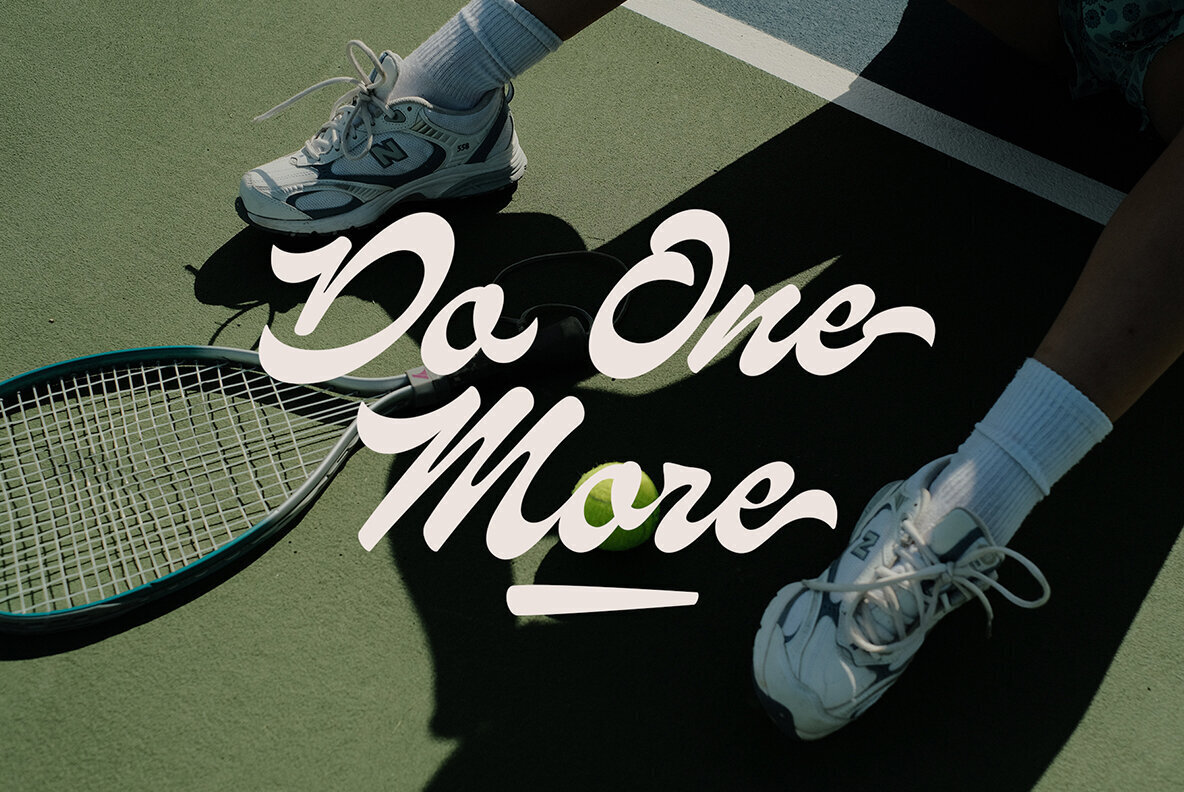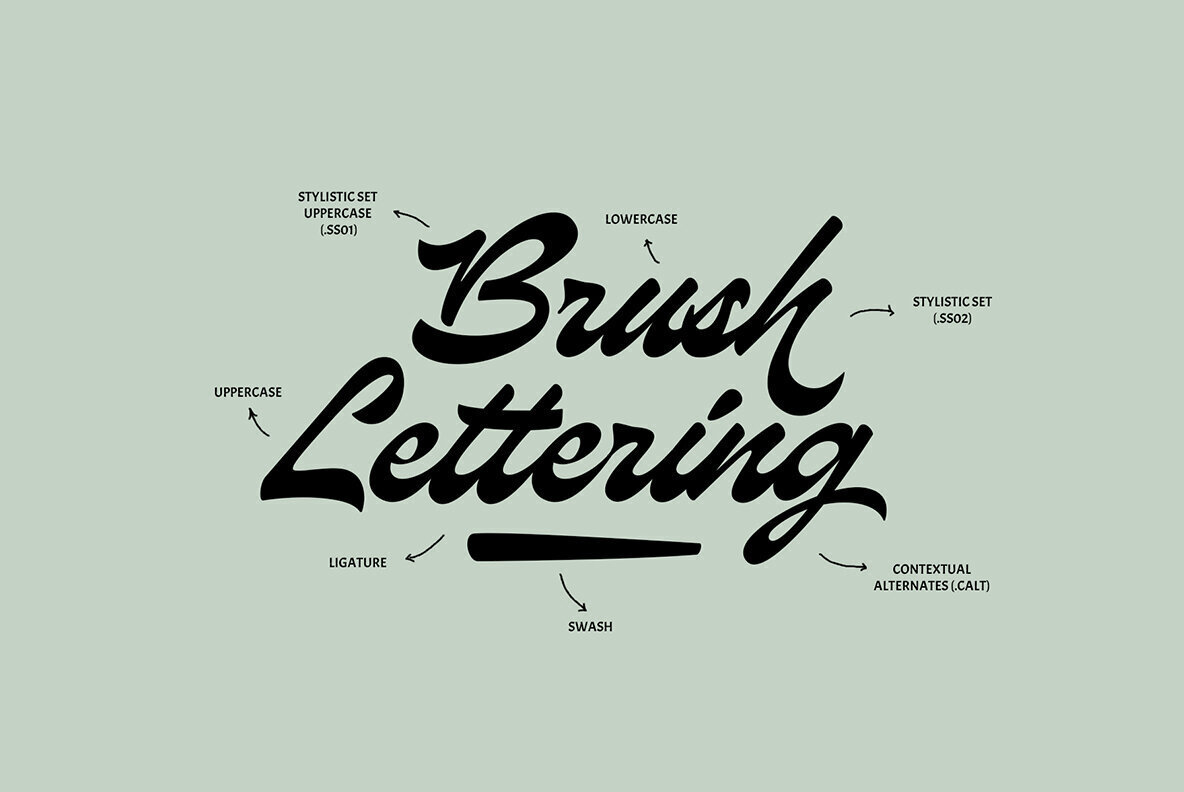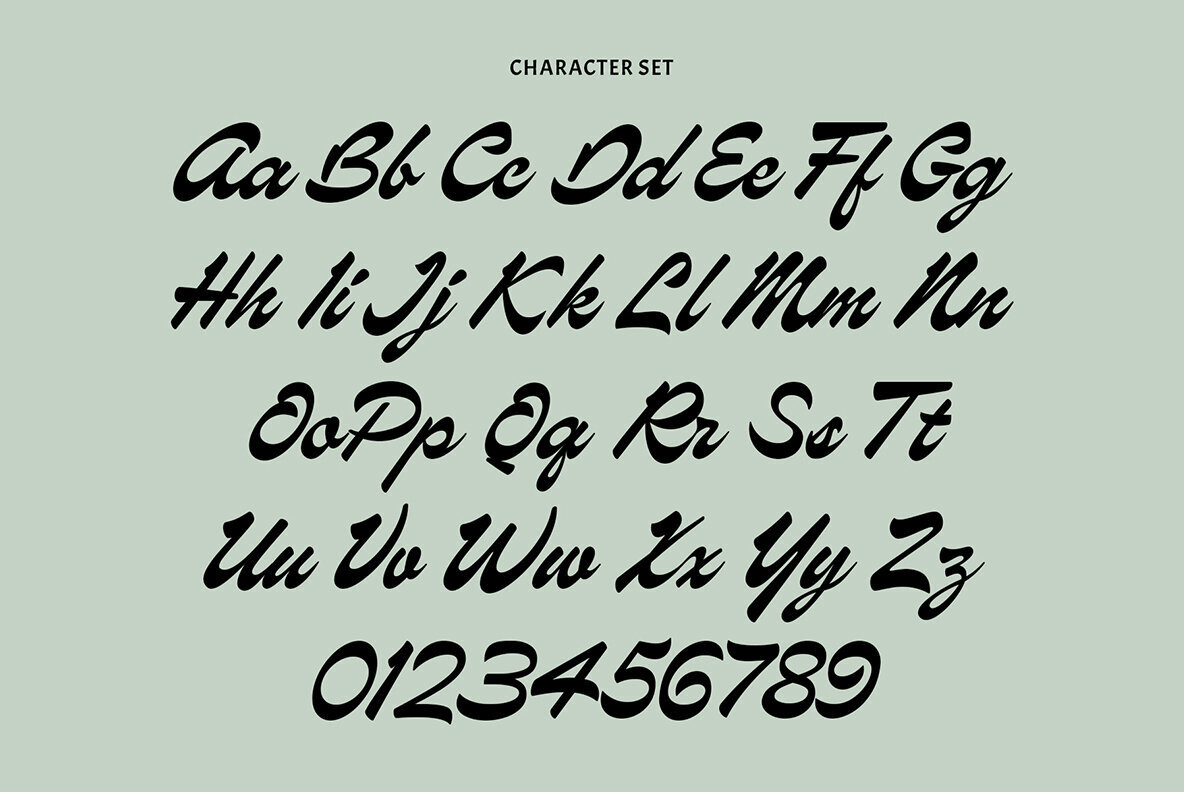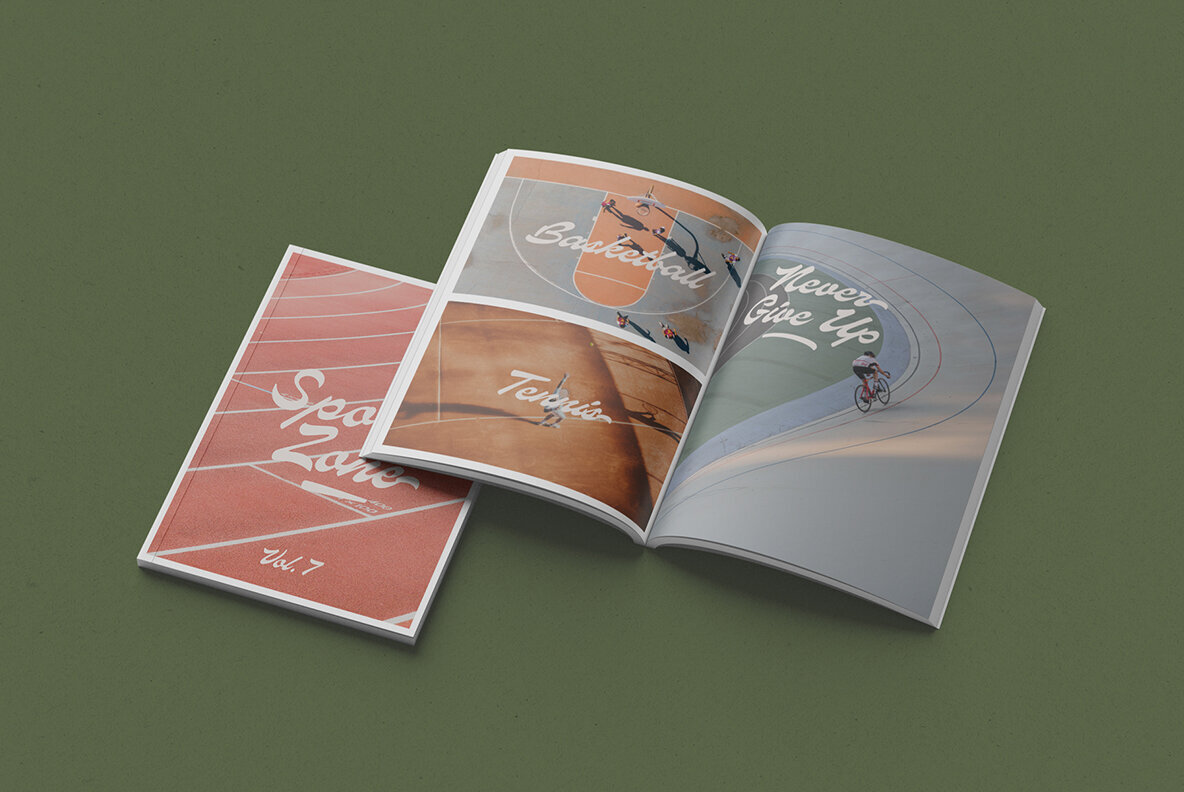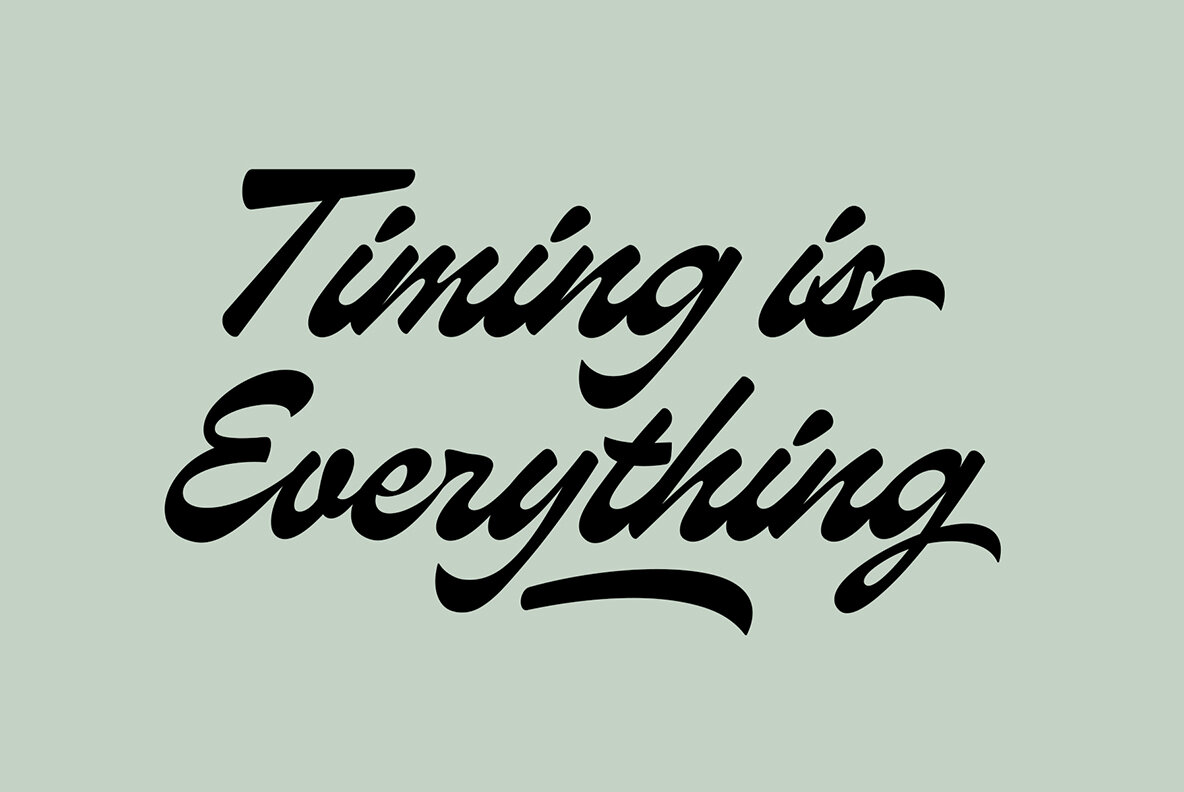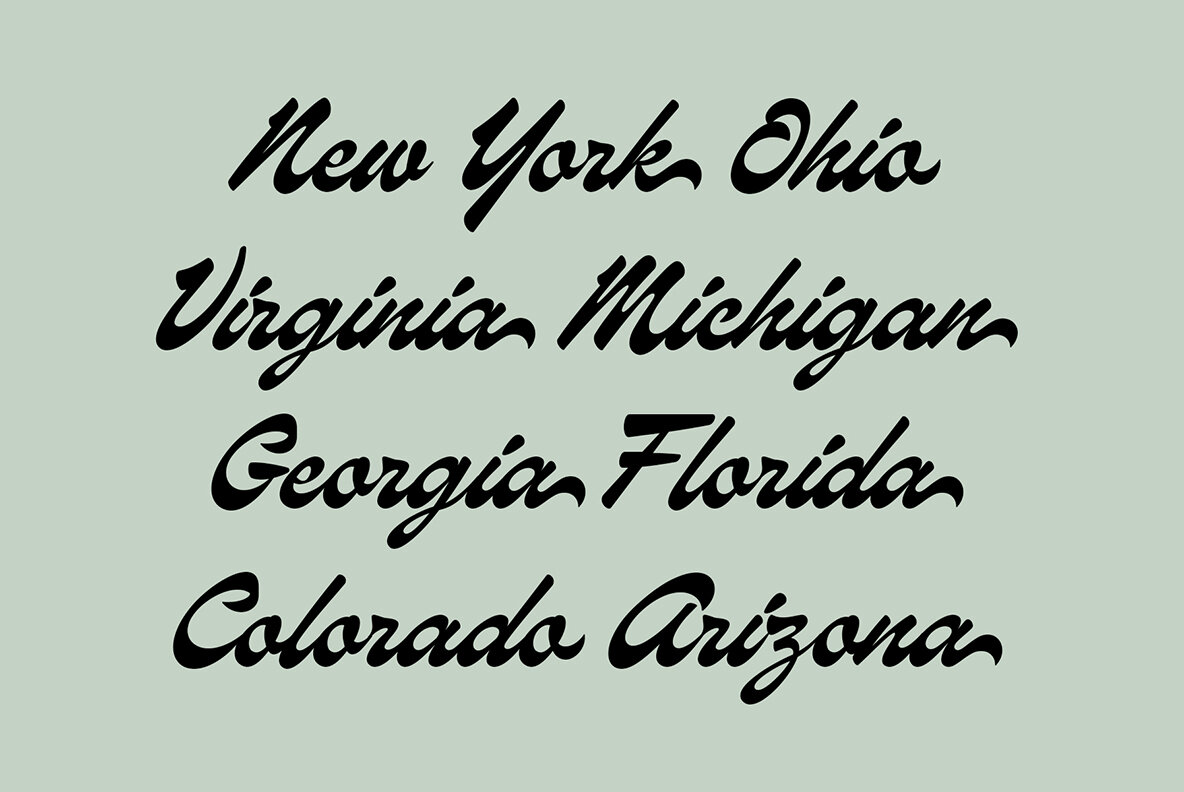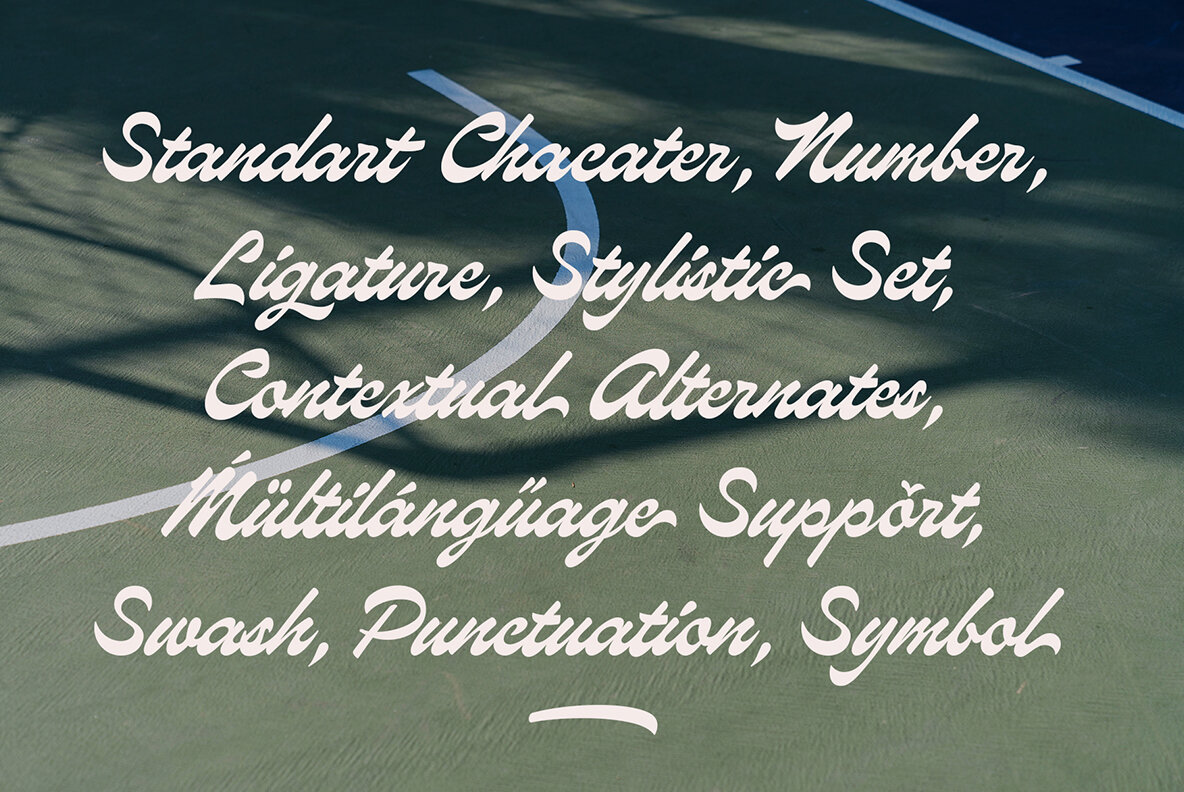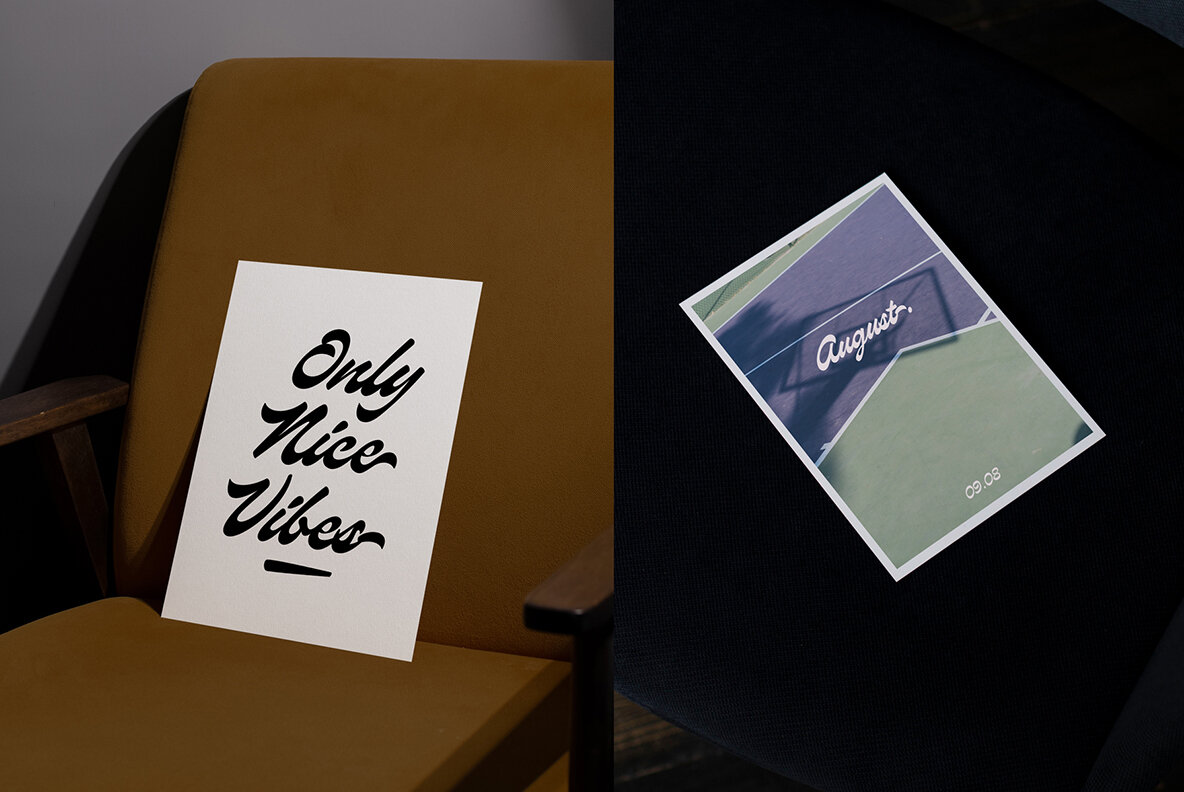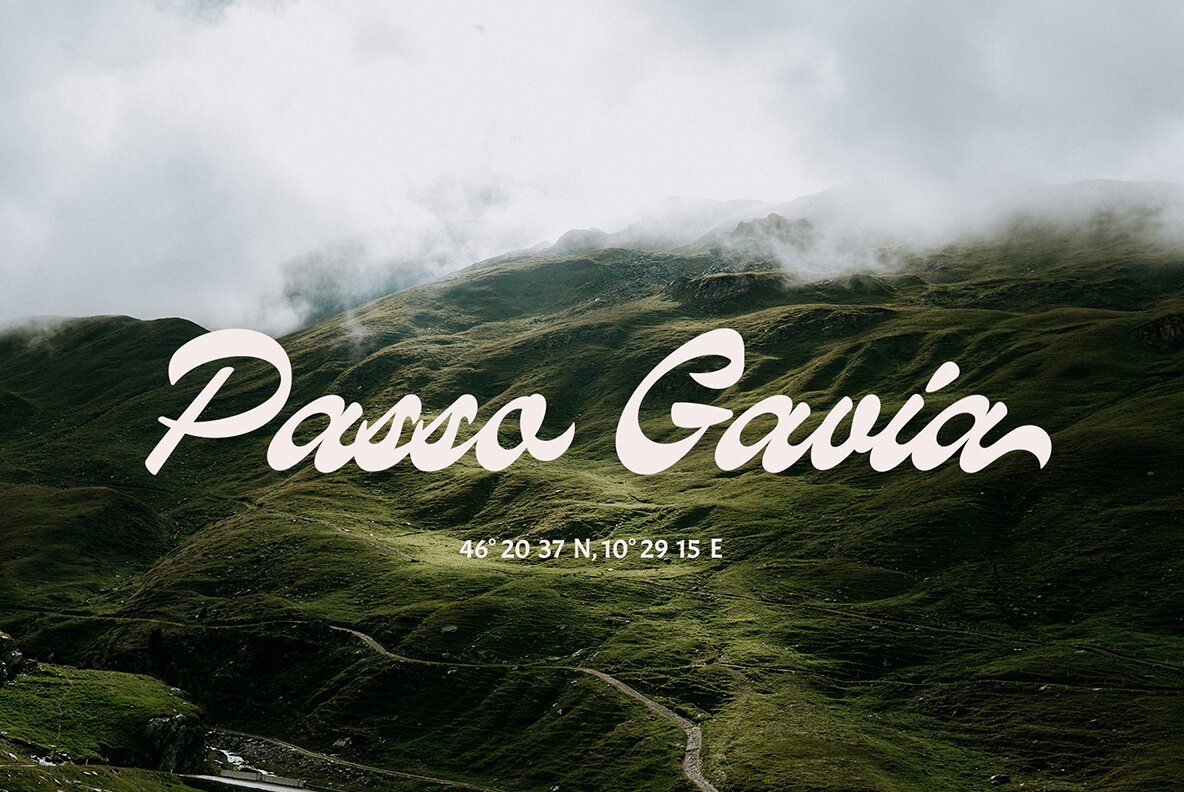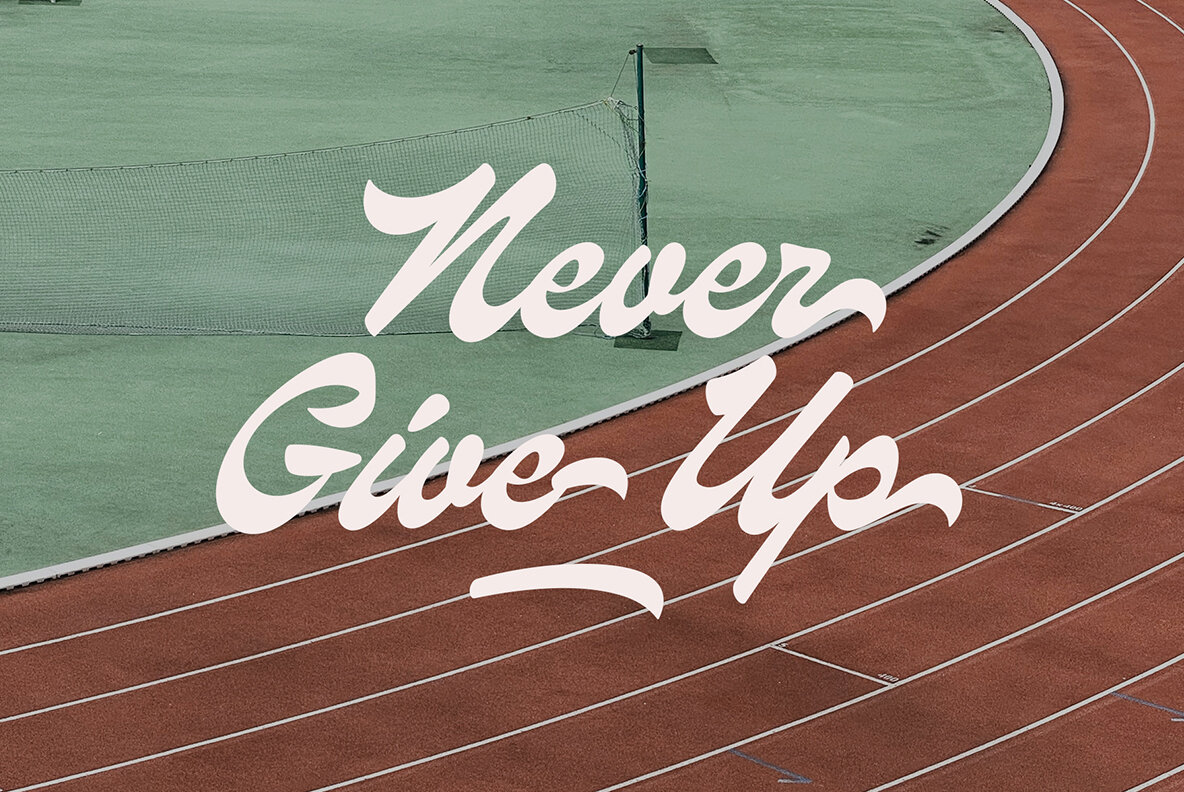
ED Medimont Font
ED Medimont is a brush script font with the perfect amount of vintage style. This versatile, creative typeface can be used for anything from logos to printed quotes and invitations! It comes equipped not only in one weight but also 45+ stylistic sets that will keep your design looking fresh no matter what you're doing.